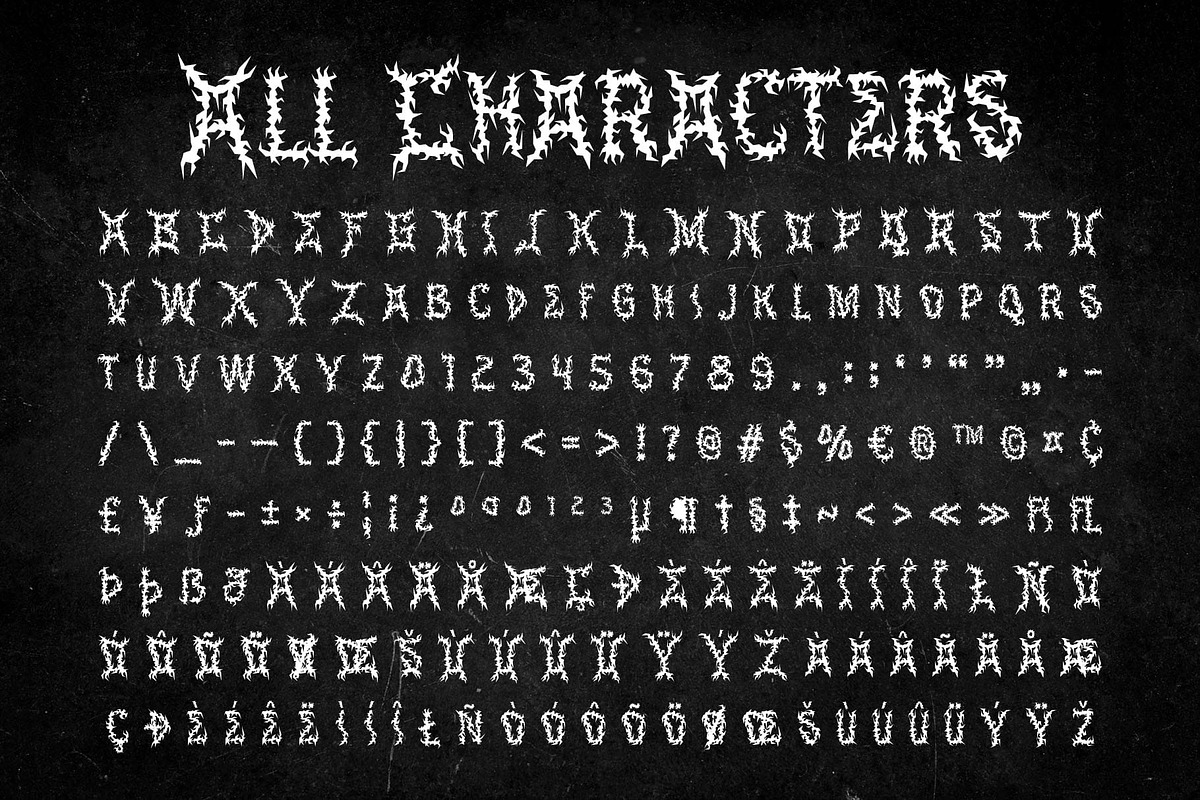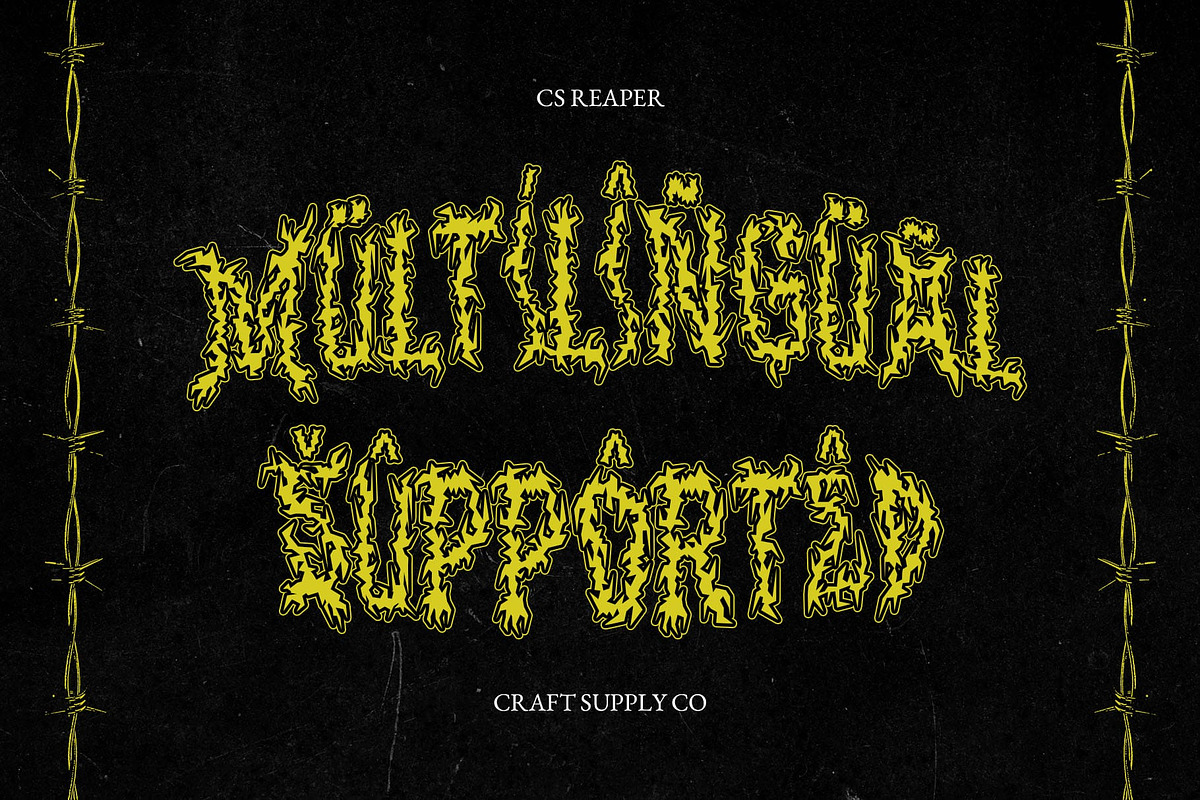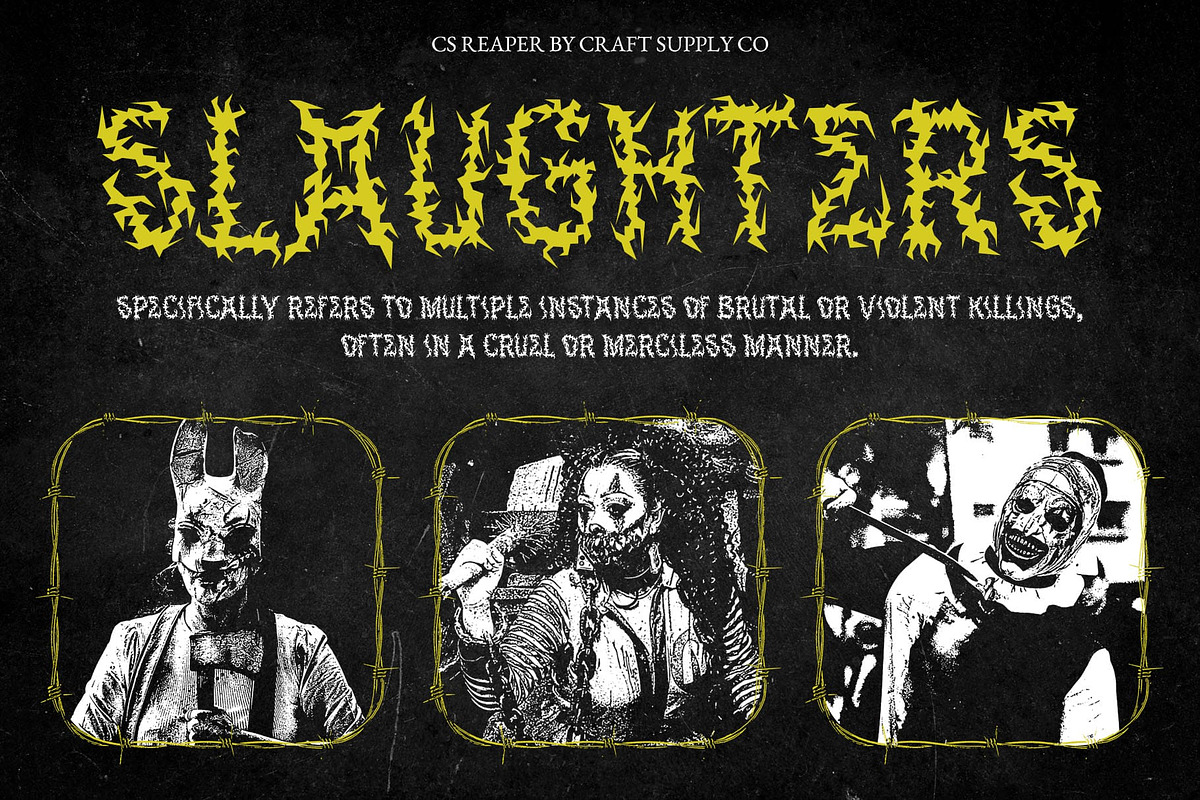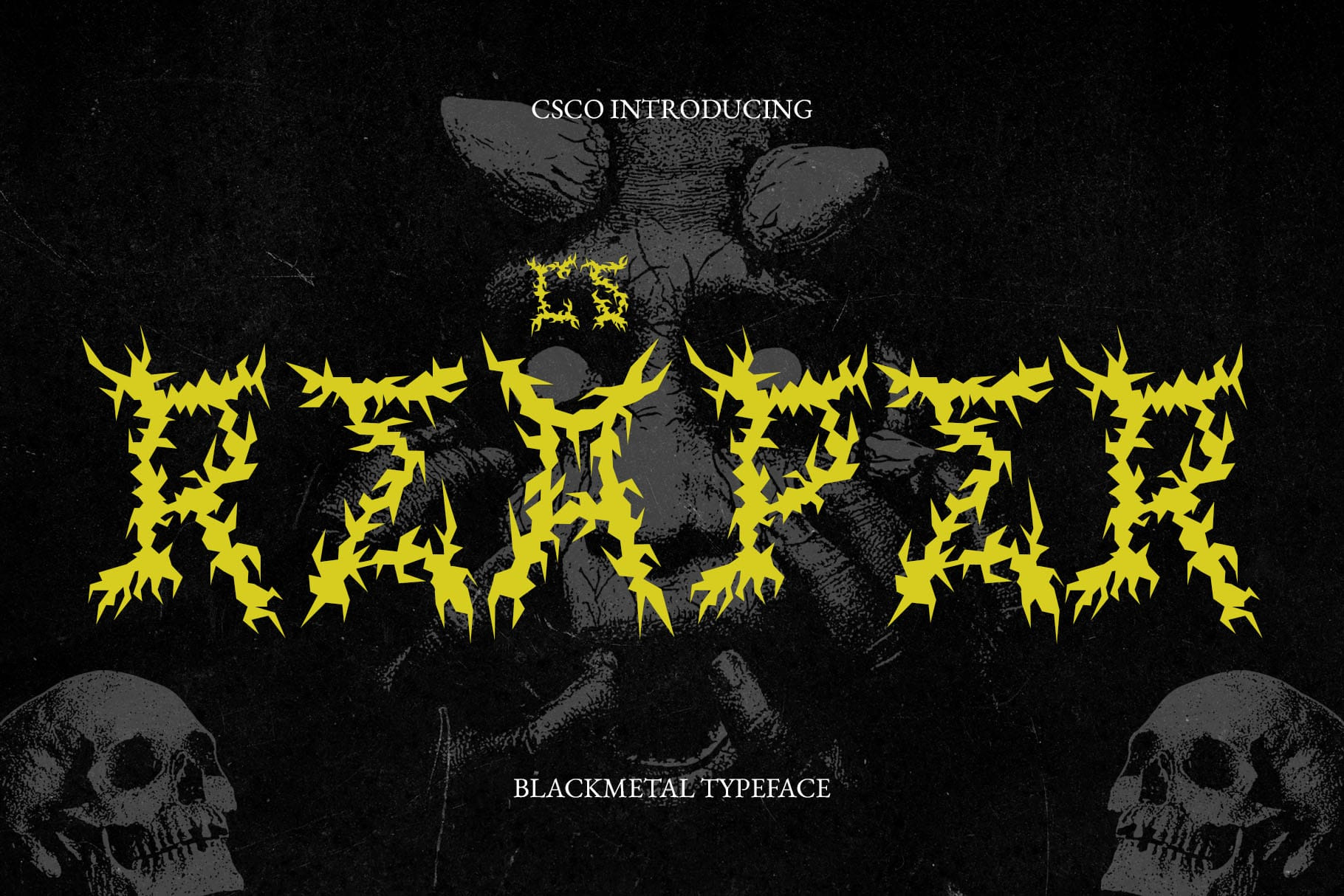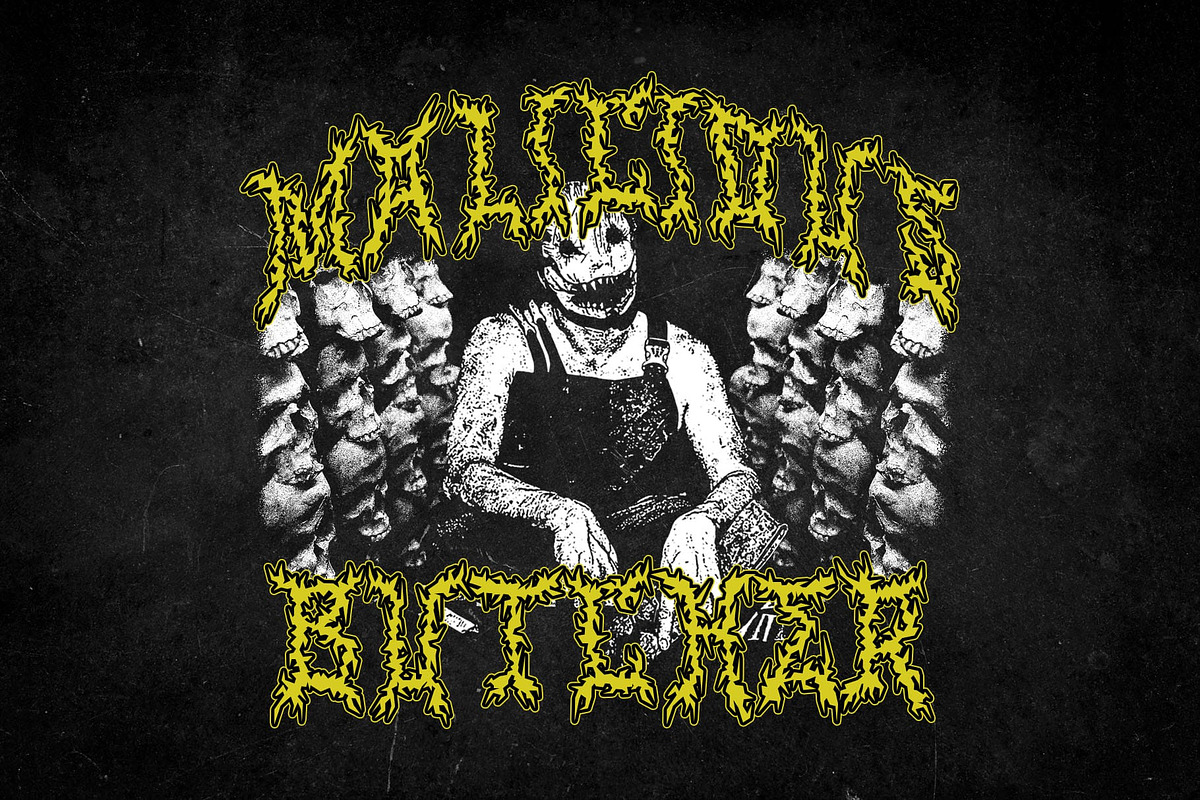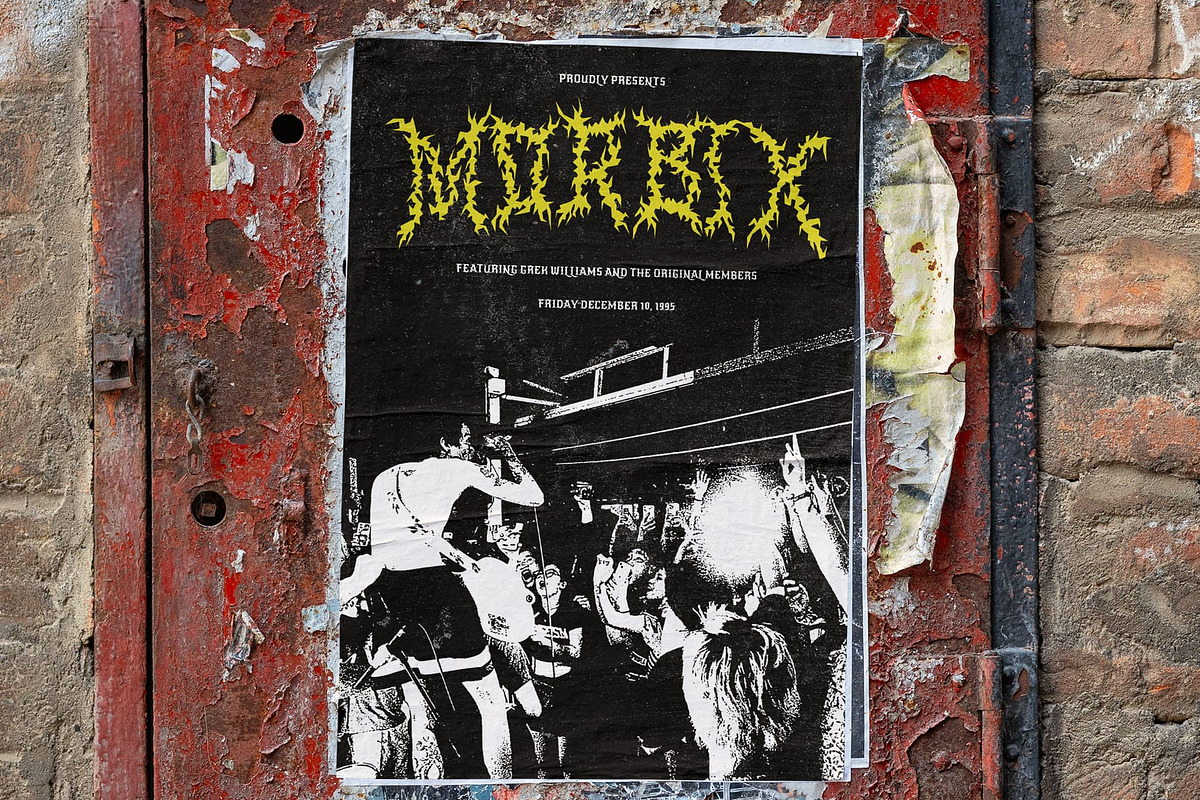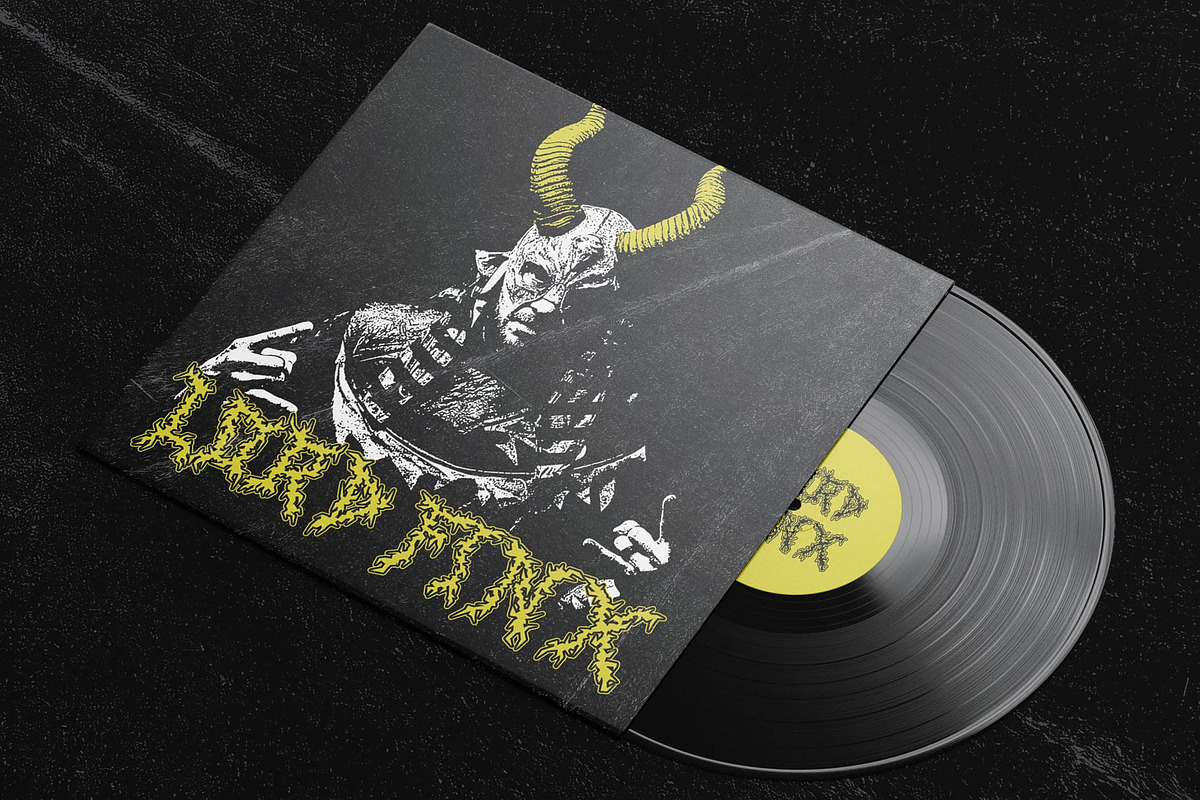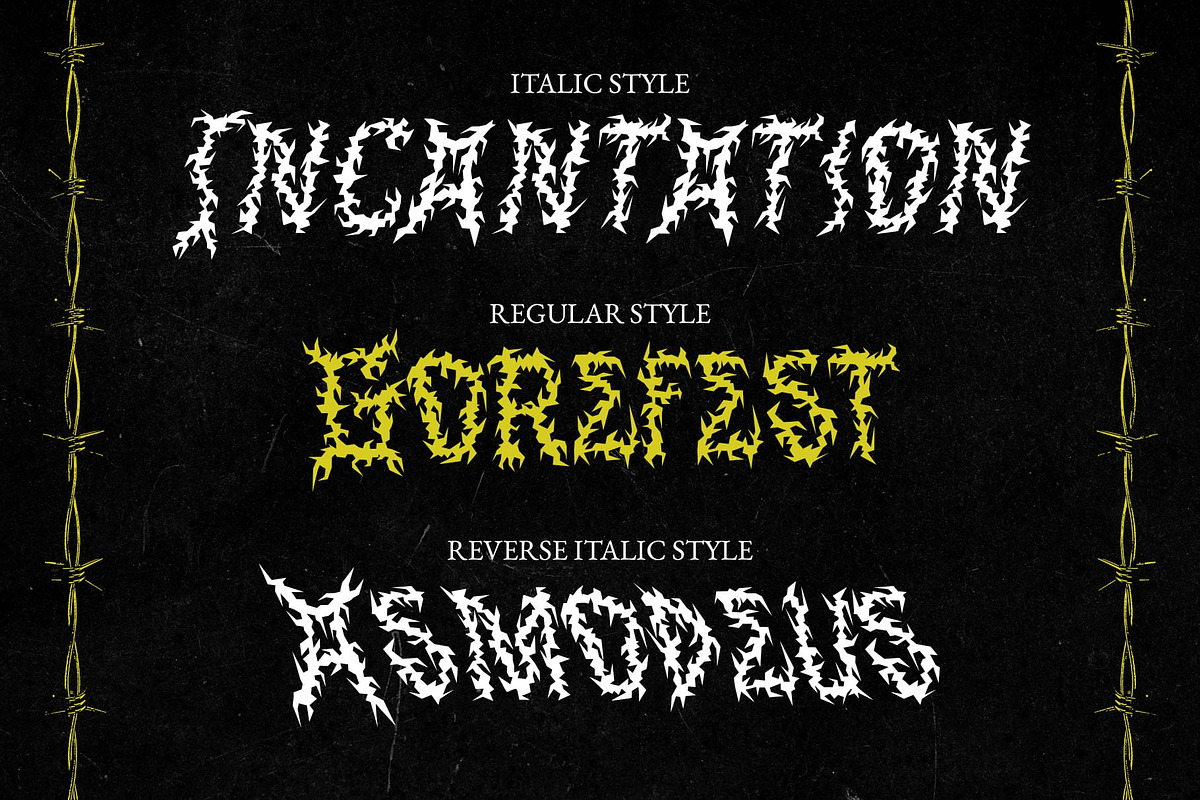
CS Reaper – Black Metal Font
CS Reaper – A Ruthless Black Metal Display Font
Dark, Spiked, and Unforgiving CS Reaper is a ferocious Black Metal display font designed to command attention with its jagged, spiked, and chaotic letterforms. Influenced by the raw, unrelenting energy of extreme metal, this font embodies dark mysticism, aggression, and rebellion. Its thorn-like details and eerie, distorted shapes make every word look like an ancient symbol of power.
Born from Chaos and Darkness With its irregular, ritualistic aesthetic, CS Reaper echoes the brutal essence of underground metal scenes. The sharp, fractured strokes resemble decayed gothic carvings or twisted roots, creating a demonic and atmospheric visual identity. Its intensely detailed structure delivers an otherworldly, almost supernatural presence.
Perfect for Extreme Designs Designed for metal band logos, concert posters, album covers, horror branding, and occult-inspired artwork, CS Reaper thrives in dark and chaotic compositions. Whether used for merchandise, extreme music festivals, or gothic-themed visuals, this font ensures a brutal and unforgettable impact.
Unleash the Darkness CS Reaper is more than just a font—it’s a symbol of power, rebellion, and the macabre. Let its sinister and aggressive form bring your designs to life with a ruthless and unholy presence.